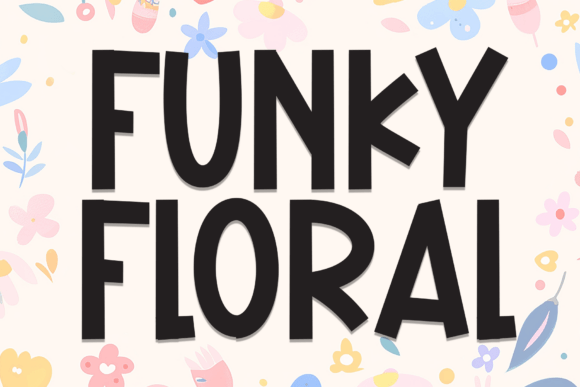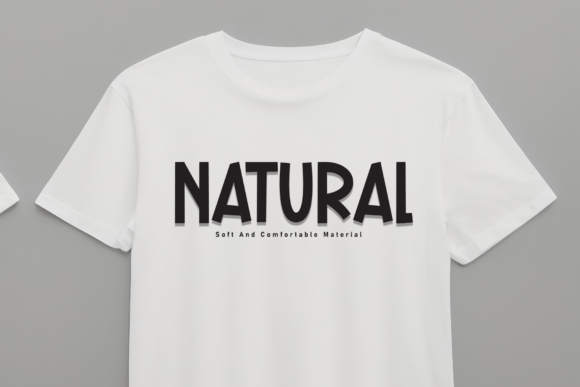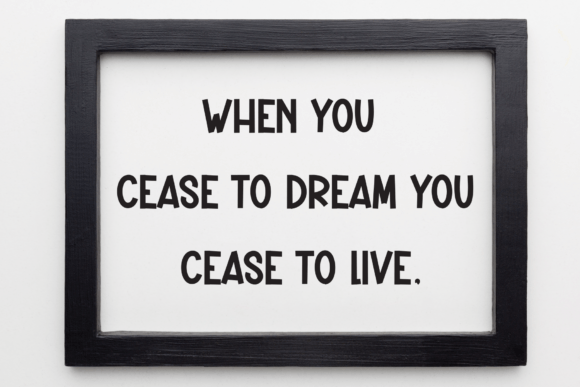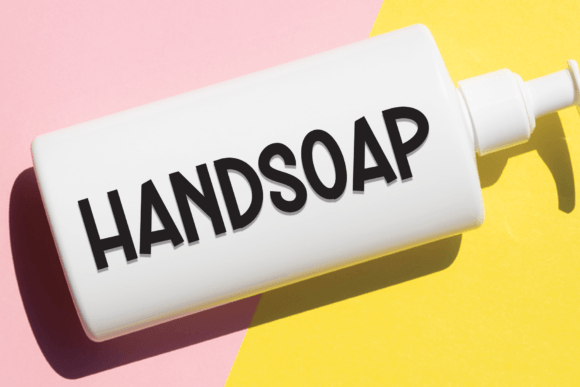
Funky Floral Font: A Playful & Bold Display Font for Crafting & Cricut!
About the Funky Floral Font
Add a touch of class to your work with the Funky Floral Font, a truly exceptional typeface. Brighten up your designs with
Funky Floral
, a playful and bold font bursting with personality! Perfect for fun projects like invitations, posters, branding, and crafts, this font pairs beautifully with floral or whimsical themes. Add a lively, creative vibe to your work with Funky Floral!
Funky Floral’s bold, playful strokes make it ideal for headlines, short text blocks on posters or invitations, and branding elements requiring a strong visual impact. It works exceptionally well for projects aimed at a younger demographic or those with a vibrant, whimsical aesthetic. Avoid using it for body text or long paragraphs; its decorative nature compromises readability in extended use.
Consider pairing Funky Floral with a clean sans-serif like Open Sans for a balanced contrast, or a classic serif such as Garamond for a sophisticated juxtaposition. For a more whimsical approach, a script font with a similar playful energy could also be effective.
Its overall personality is undeniably fun and energetic, making it perfect for brands associated with creativity, childhood, entertainment, or floral-themed businesses. Using it sparingly, as an accent, is key to maintaining visual impact and preventing visual overload.
Funky Floral Font Usage Examples
Funky Floral Font Example